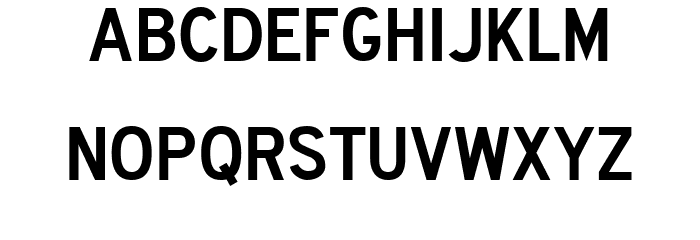
Roadway Font
This font features a bold and impactful design, characterized by its tall and narrow letterforms. The uppercase letters are prominently displayed with consistent stroke widths, giving a strong and assertive appearance. The lowercase letters maintain the same boldness, ensuring readability and uniformity across different text sizes. The numerals are clear and distinct, matching the overall bold style of the alphabet. Special characters are well-integrated, maintaining the font's cohesive look. This font is ideal for making a statement with its strong presence and clear legibility.
A bold, tall, and narrow font with consistent stroke widths for a strong, assertive appearance.
- Font: Roadway
- Proposed Projects: Ideal for headlines, posters, signage, and branding projects where a bold statement is needed.
- Category: Sans-Serif
- Use Case: Headlines, Logos, Signage